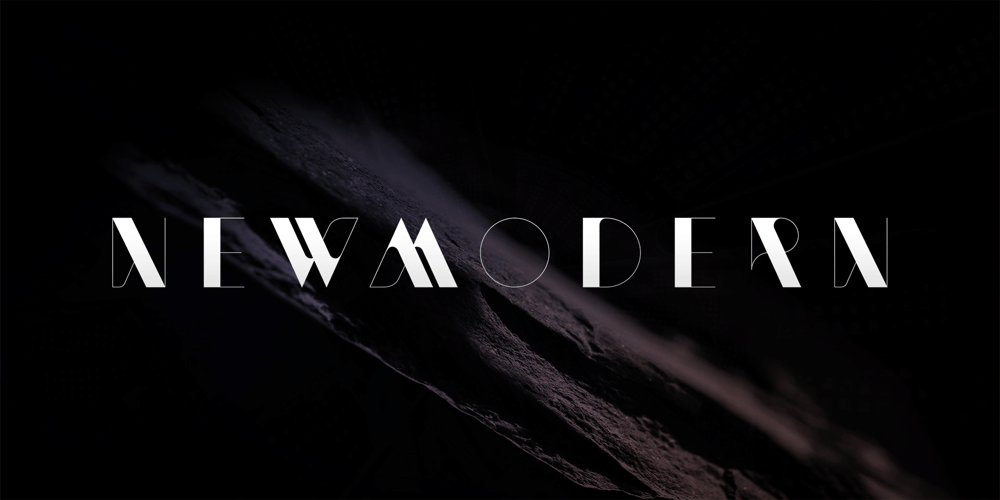
NewModern Font Family was designed by Jonathan Quainton, Rob Gonzalez and published by Sawdust. NewModern contains 1 styles and family package options. Introducing NewModern: Sawdust’s inaugural typeface release, now making a comeback from our exclusive archives through the esteemed MyFonts foundry. Originally crafted for the renowned ‘HypeForType’ type foundry, this font represents a seamless blend of tradition and innovation. With a fresh perspective on the classic Didone genre, often referred to as ‘Modern,’ NewModern encapsulates the essence of contemporary design.